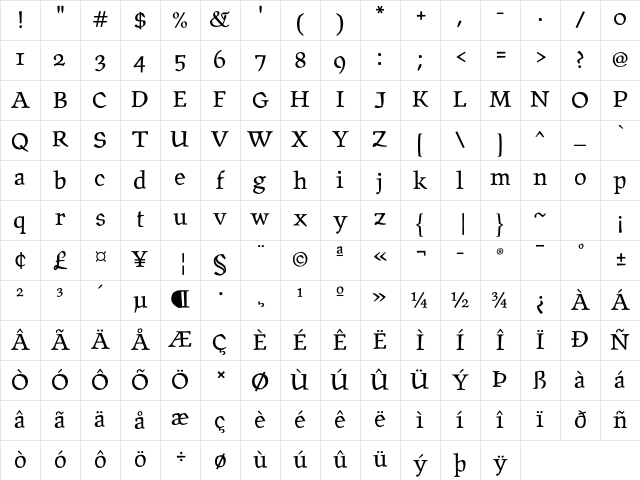
Oldrichium ITC Std Regular
Designer: George Thompson
Design Context for Oldrichium ITC Std
Oldrichium ITC Std is a composed and adaptable typeface that performs quietly and consistently across a wide range of design contexts.
Pro Tip: Use Oldrichium ITC Std in both headline and body roles to test its range before committing to a single application.